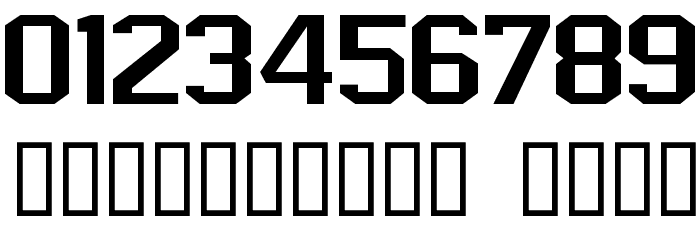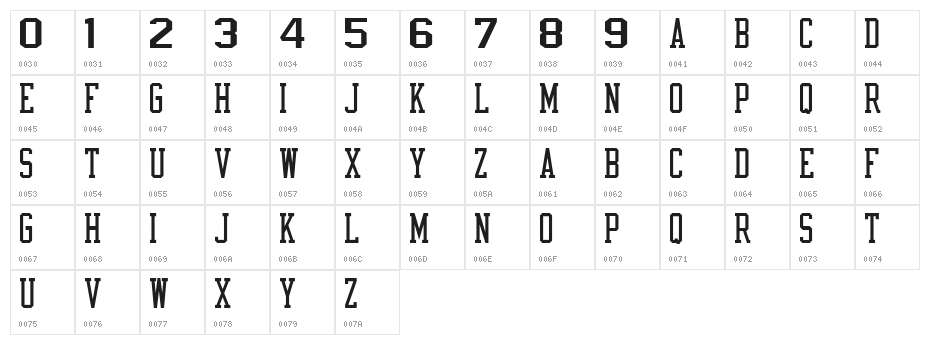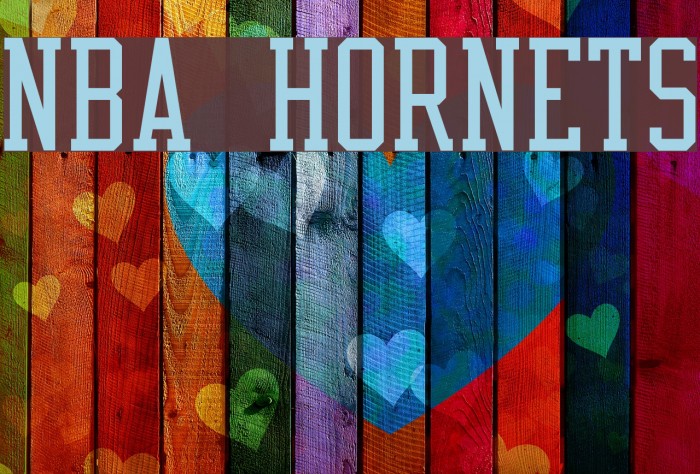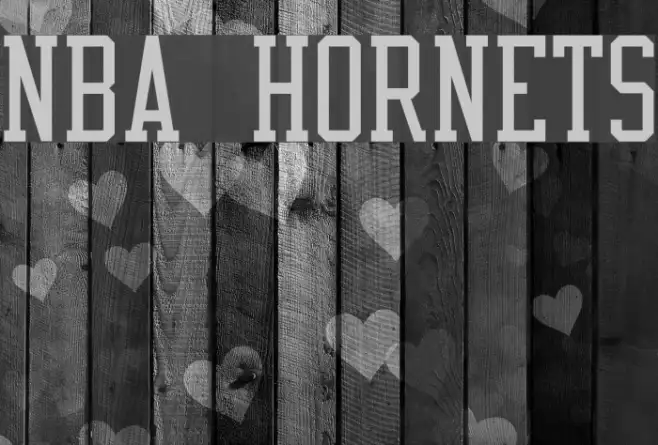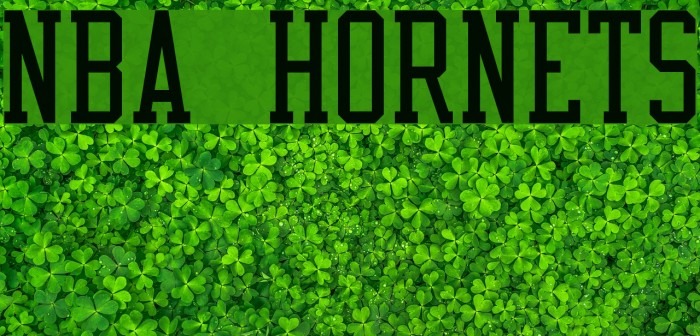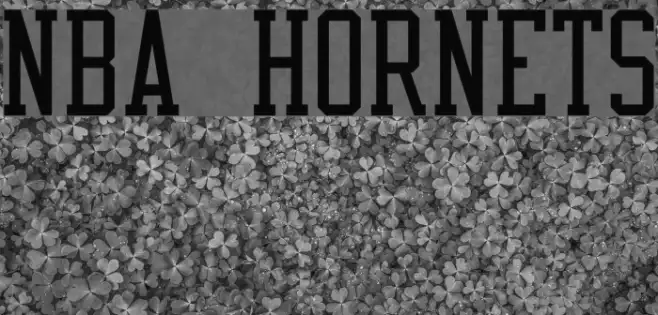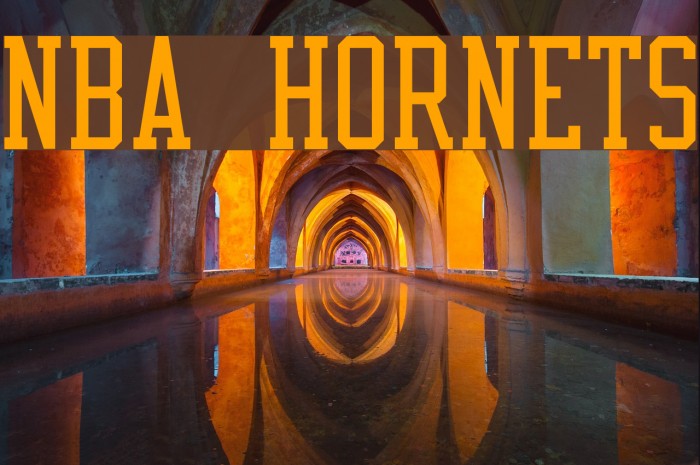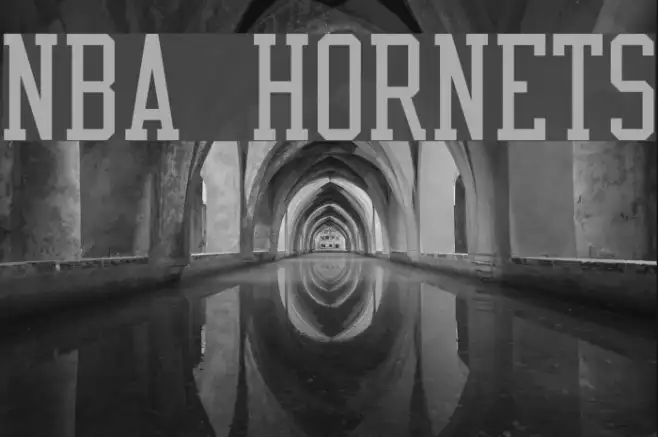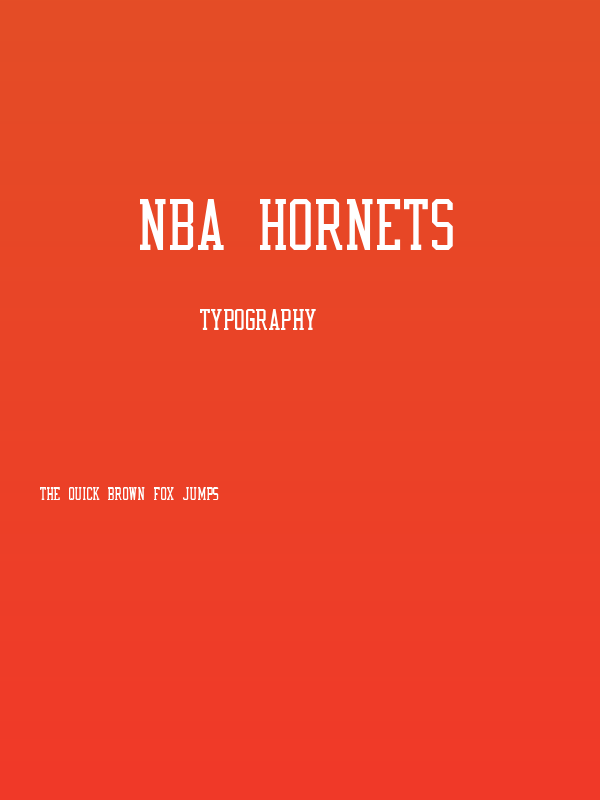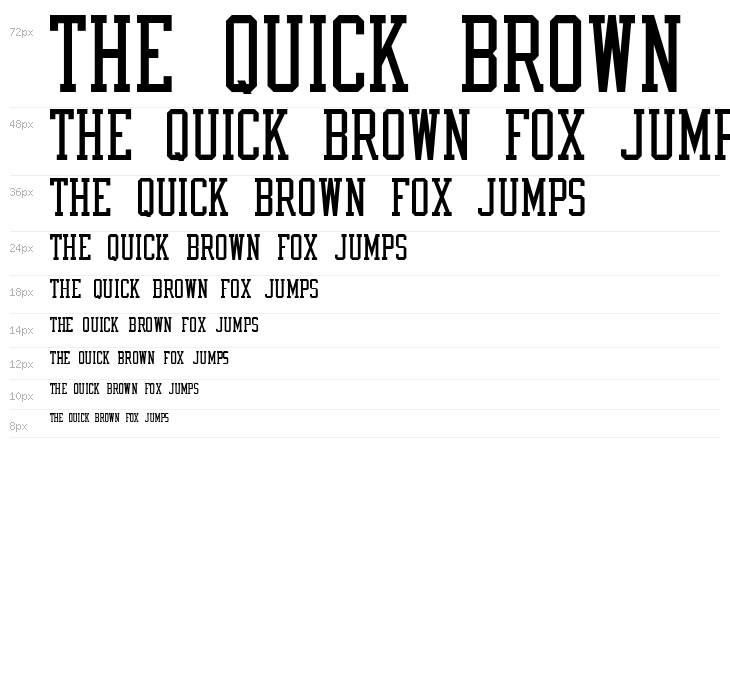
NBA Hornets Font
NBA Hornets Description
This font features a bold, athletic style with strong geometric shapes and a solid presence. The uppercase letters are tall and narrow, with sharp angles and a uniform stroke width that conveys strength and stability. The numbers are equally robust, maintaining the same angular design and consistent weight. The overall appearance is reminiscent of sports jerseys, making it ideal for team branding or athletic-themed projects. The font's design is clean and impactful, ensuring high readability and a commanding visual presence.
| Overall Style | Modern, Athletic |
| Use Case | Logos, Headlines, Sports Branding |
| Proposed Projects | Ideal for sports branding, team jerseys, athletic event posters, and merchandise. |